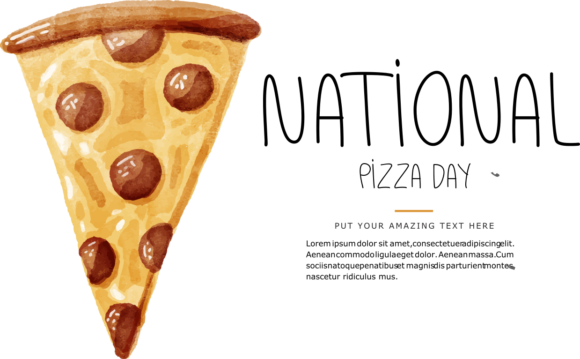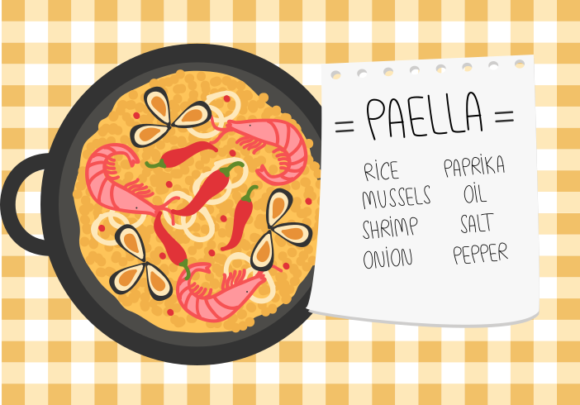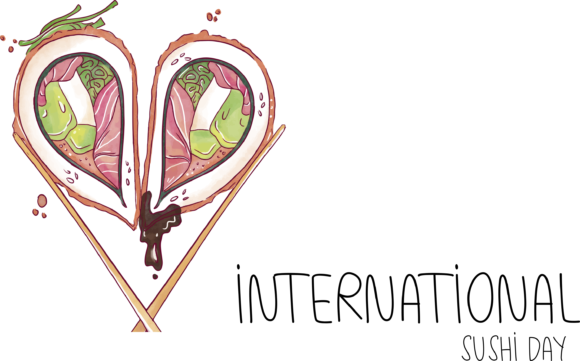
Discover the Charm of Clumsy Font: A Friendly, Quirky, and Relatable Script Font
Are you tired of using the same old fonts in your designs? Look no further than Clumsy Font, a friendly, quirky, and relatable script font that’s sure to add a touch of freshness and modernity to your work. With its authentic and cute vibe, Clumsy Font is perfect for designers and crafters looking to add some personality to their projects.
What is Clumsy Font?
Clumsy Font is a script font that’s designed to feel approachable and down-to-earth. Its unique, hand-drawn aesthetic gives it a relatable and endearing quality that’s hard to find in more traditional fonts. Whether you’re working on a branding project, a craft tutorial, or a social media graphic, Clumsy Font is the perfect choice for adding a touch of whimsy and charm.
The Benefits of Using Clumsy Font
So why choose Clumsy Font over other script fonts on the market? Here are just a few benefits of using this delightful font in your designs:
- Unique and eye-catching: Clumsy Font’s quirky, hand-drawn aesthetic makes it stand out from more traditional fonts. Its distinctive look is sure to grab attention and add visual interest to your designs.
- Relatable and authentic: Clumsy Font’s friendly, approachable vibe makes it perfect for brands and designers looking to connect with their audience on a more personal level.
- Versatile: Whether you’re working on a digital project or a print project, Clumsy Font is versatile enough to adapt to any style or format.
- Easy to read: Despite its quirky aesthetic, Clumsy Font is surprisingly easy to read, making it perfect for use in body text as well as headlines.
How to Use Clumsy Font in Your Designs
Ready to give Clumsy Font a try? Here are a few tips for incorporating this delightful font into your designs:
- Pair it with bold colors: Clumsy Font’s playful aesthetic pairs perfectly with bold, bright colors. Try pairing it with a bold color scheme to add an extra touch of whimsy to your design.
- Use it for headings and titles: Clumsy Font’s unique aesthetic makes it perfect for use in headings and titles. Try using it to add a touch of personality to your blog posts, social media graphics, or marketing materials.
- Mix it with other fonts: For a more eclectic look, try pairing Clumsy Font with other fonts. Its quirky aesthetic pairs well with both serif and sans-serif fonts.
Who is Clumsy Font for?
Clumsy Font is perfect for designers and crafters who want to add a touch of personality to their work. Here are a few examples of who might benefit from using this delightful font:
- Graphic designers: Whether you’re working on a branding project or a marketing campaign, Clumsy Font is a great choice for adding a touch of whimsy and charm.
- Crafters: If you’re a crafter or maker, Clumsy Font is perfect for adding a personal touch to your tutorials, patterns, or product labels.
- Social media influencers: Clumsy Font’s playful aesthetic makes it perfect for use in social media graphics, where it can help you stand out from the crowd.
Clumsy Font is a friendly, quirky, and relatable script font that’s sure to add a touch of freshness and modernity to your designs. With its authentic and cute vibe, it’s perfect for designers and crafters looking to add some personality to their projects. Whether you’re working on a branding project, a craft tutorial, or a social media graphic, Clumsy Font is the perfect choice for adding a touch of whimsy and charm. So why not give it a try today and see the difference it can make in your designs?